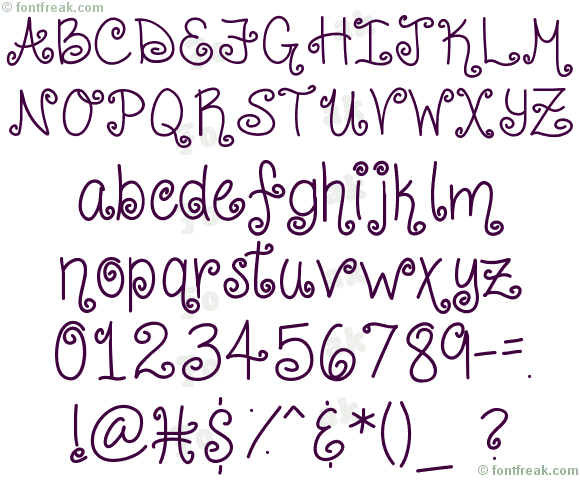
CurlyShirley
About CurlyShirley
CurlyShirley is a delightful handwritten font designed by Vanessa Bays, falling into the decorative category. This font exudes a playful charm, characterized by its whimsical curves and loops that create a friendly and inviting aesthetic. The strokes are moderately thick, providing a balanced contrast that enhances readability while still maintaining a light and airy feel. The unique spacing between letters adds to its cheerful demeanor, making it suitable for a variety of design applications.
This font shines in several specific use cases. It is perfect for creating wedding invitations, where its romantic flair adds a personal touch to the special day. Additionally, CurlyShirley is an excellent choice for children’s book covers or educational materials, as it captures the fun and imagination that resonate with younger audiences. Restaurant menus will also benefit from this font, as its informal style can evoke a welcoming atmosphere, enticing diners to explore the offerings. Furthermore, small business owners can utilize CurlyShirley for branding materials, ensuring their promotional items stand out with a unique and friendly voice.
The target audience for this font includes graphic designers looking to add a whimsical touch to their projects, small business owners wanting to create memorable branding, and content creators aiming for a playful yet sophisticated aesthetic.
What sets the CurlyShirley font apart is its ability to convey warmth and creativity through its distinctive design. It captures attention without overwhelming the viewer, making it a versatile choice for various applications. With the CurlyShirley font free download, you can easily incorporate this enchanting typeface into your next project, ensuring that your designs resonate with your audience while adding a delightful flair.